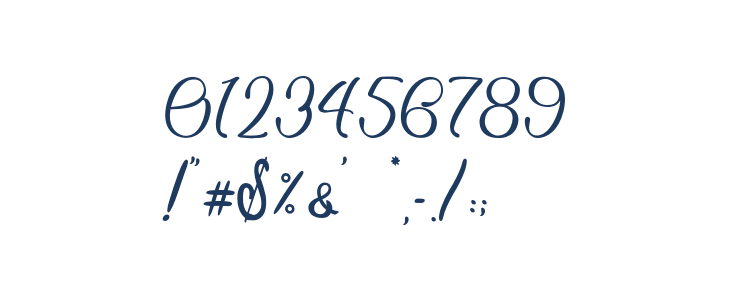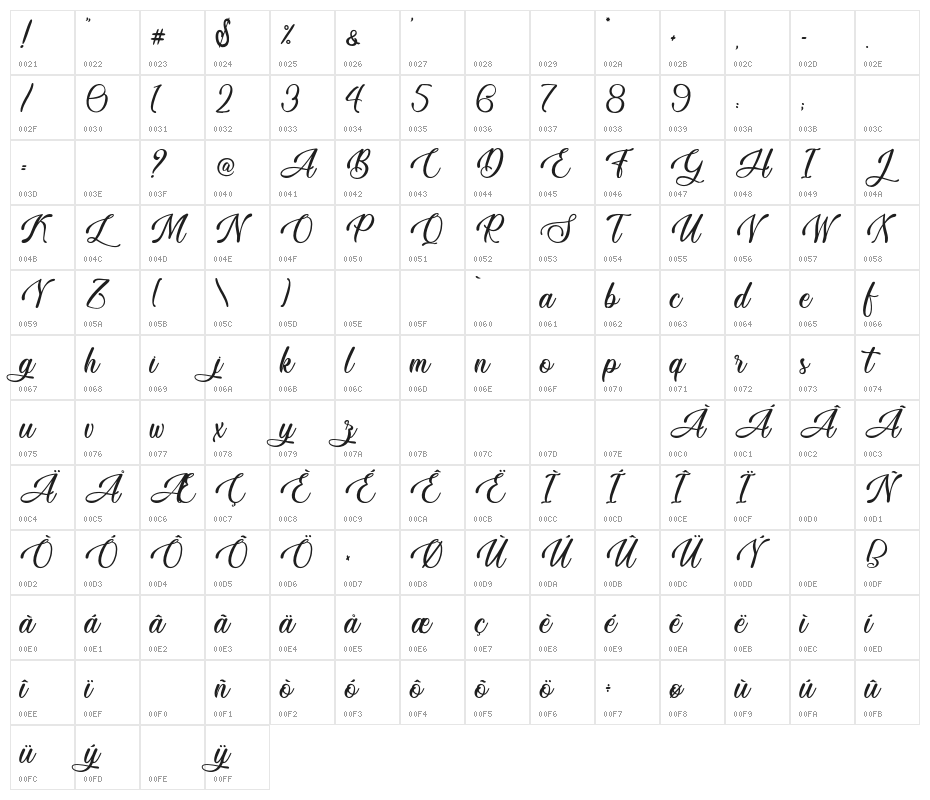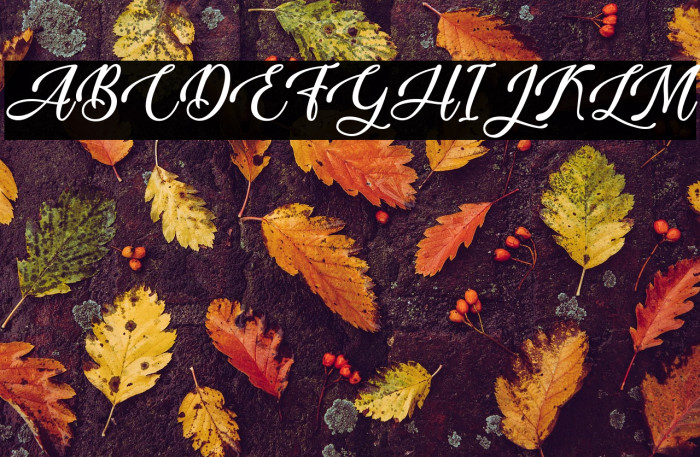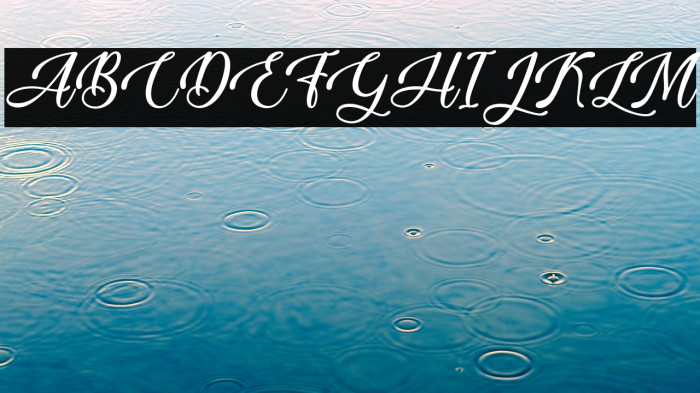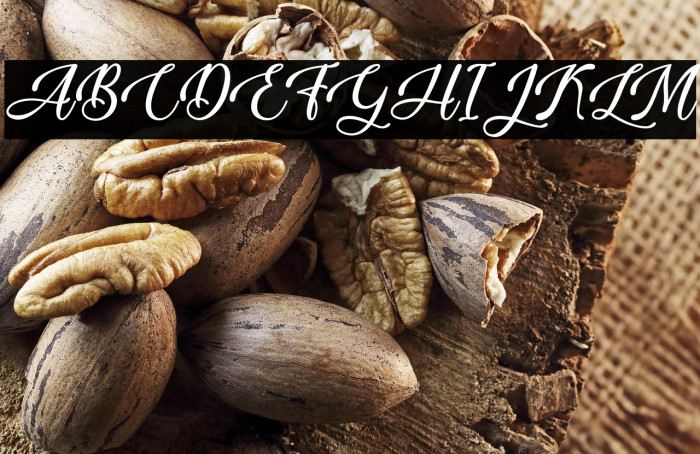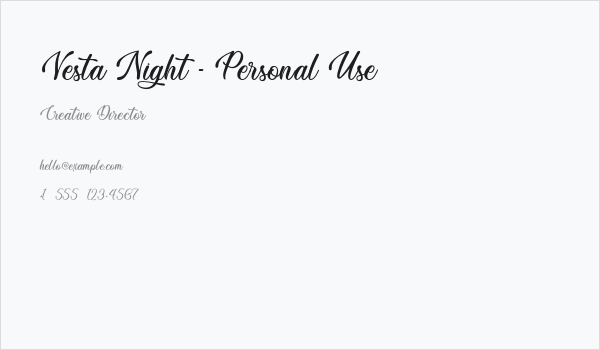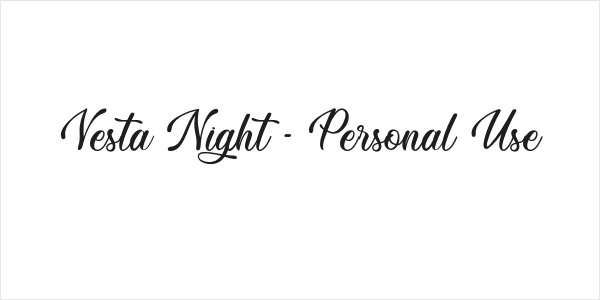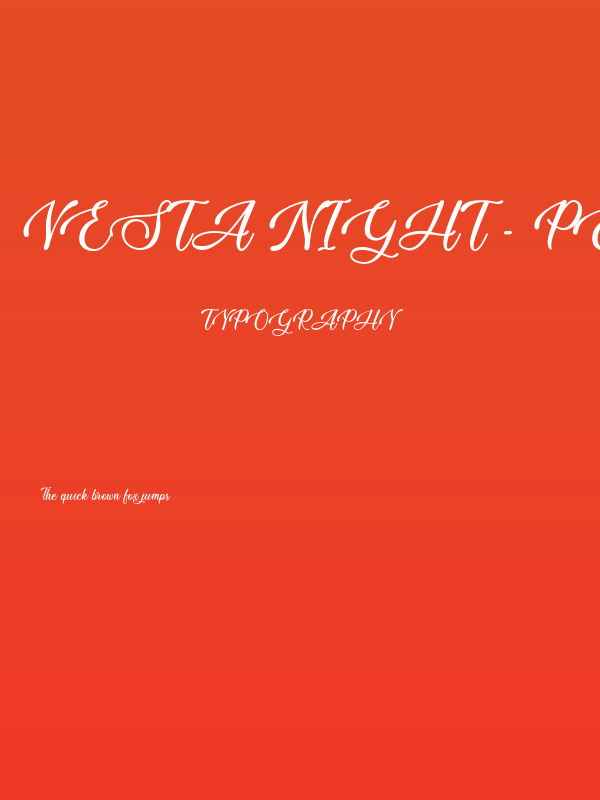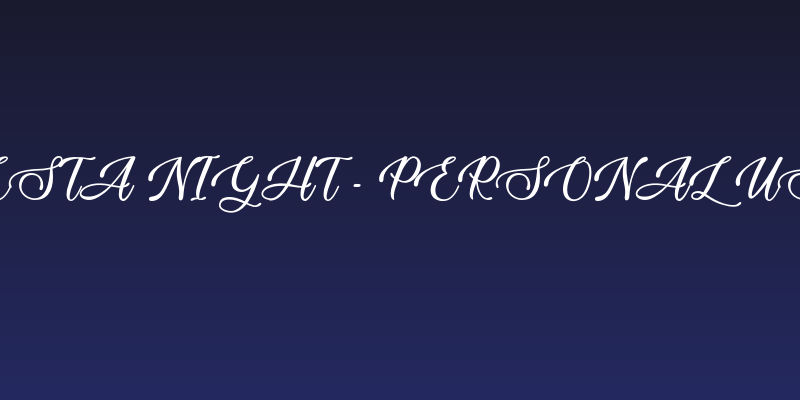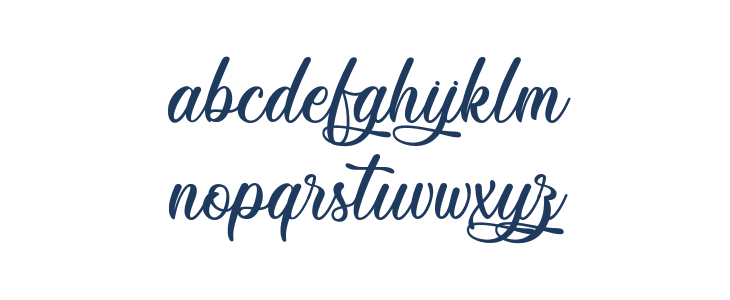
Vesta Night - Personal Use Font
Vesta Night - Personal Use Description
This font exudes elegance and sophistication with its flowing, cursive script style. Each letter is intricately designed with smooth curves and delicate flourishes, creating a sense of movement and grace. The uppercase letters are particularly ornate, featuring extended strokes and loops that add a touch of drama. The lowercase letters maintain a consistent style, with some characters featuring unique swashes that enhance their visual appeal. The numerals are equally stylish, with a slight slant and rounded forms that complement the overall aesthetic. Special characters are thoughtfully crafted, maintaining the font's cohesive look. This font is perfect for projects that require a touch of elegance and personality.
| Overall Style | Elegant, Decorative |